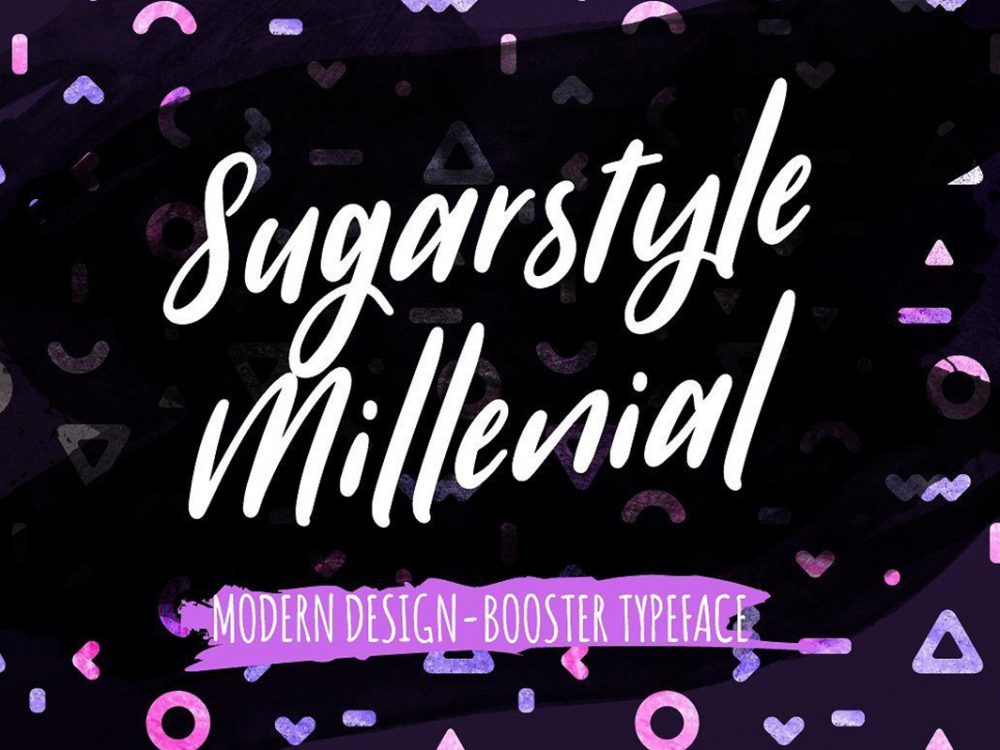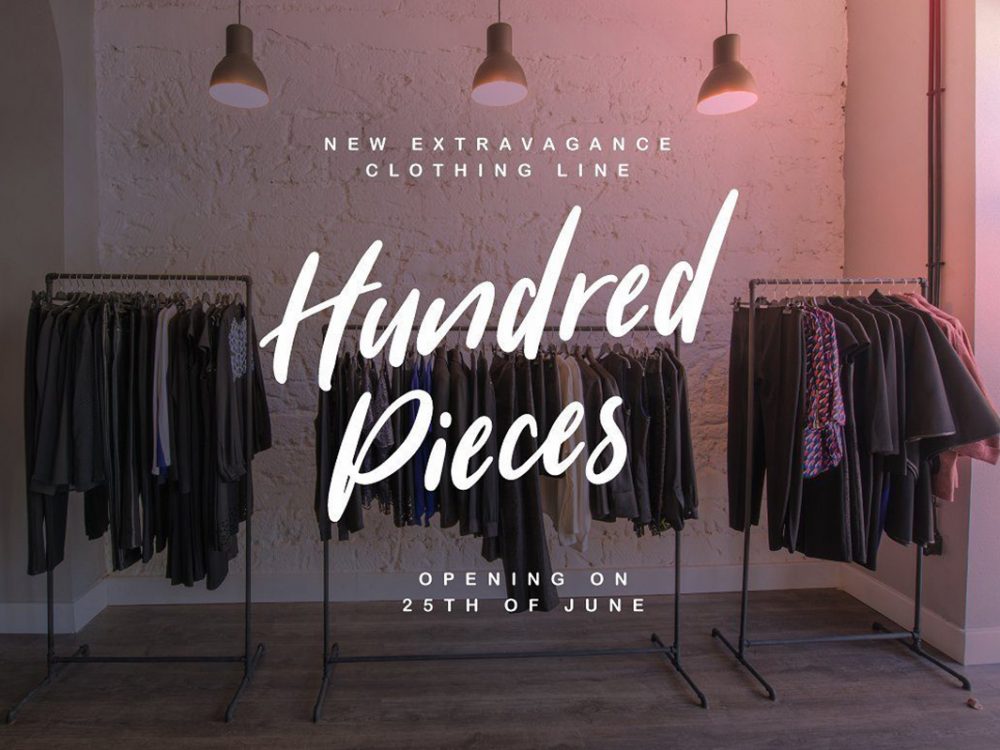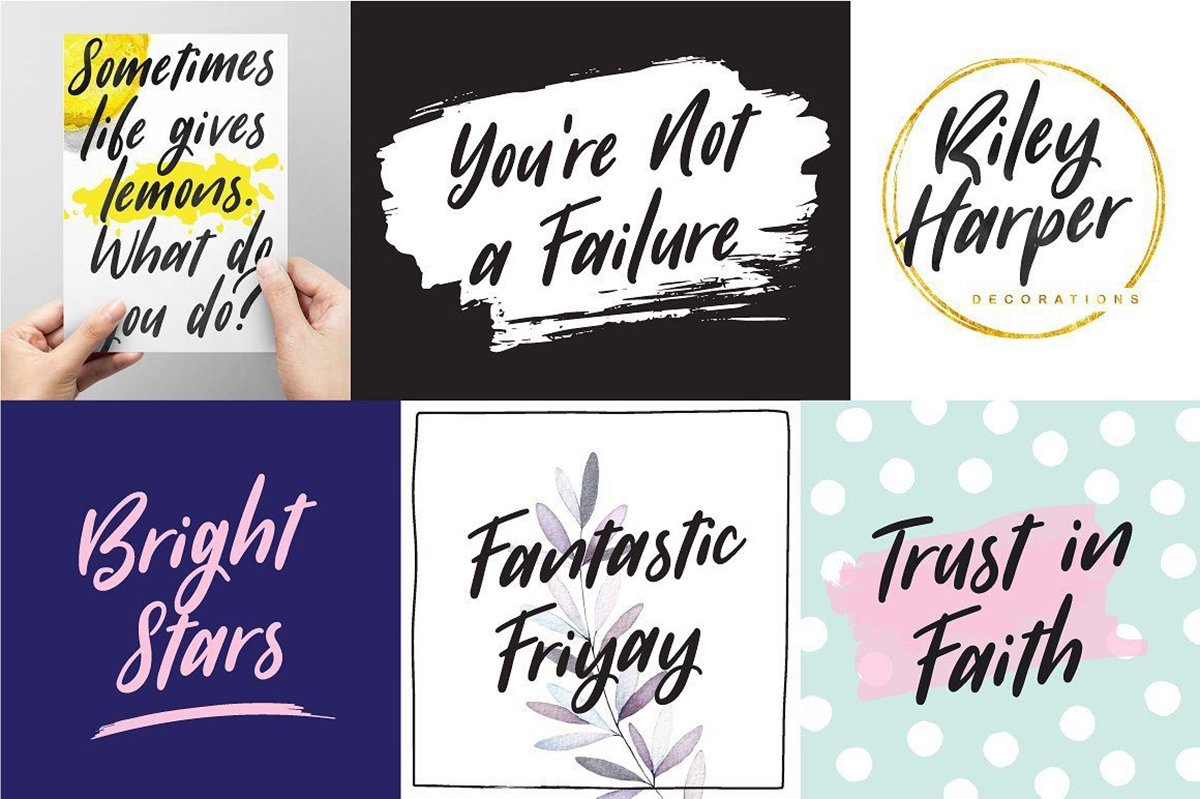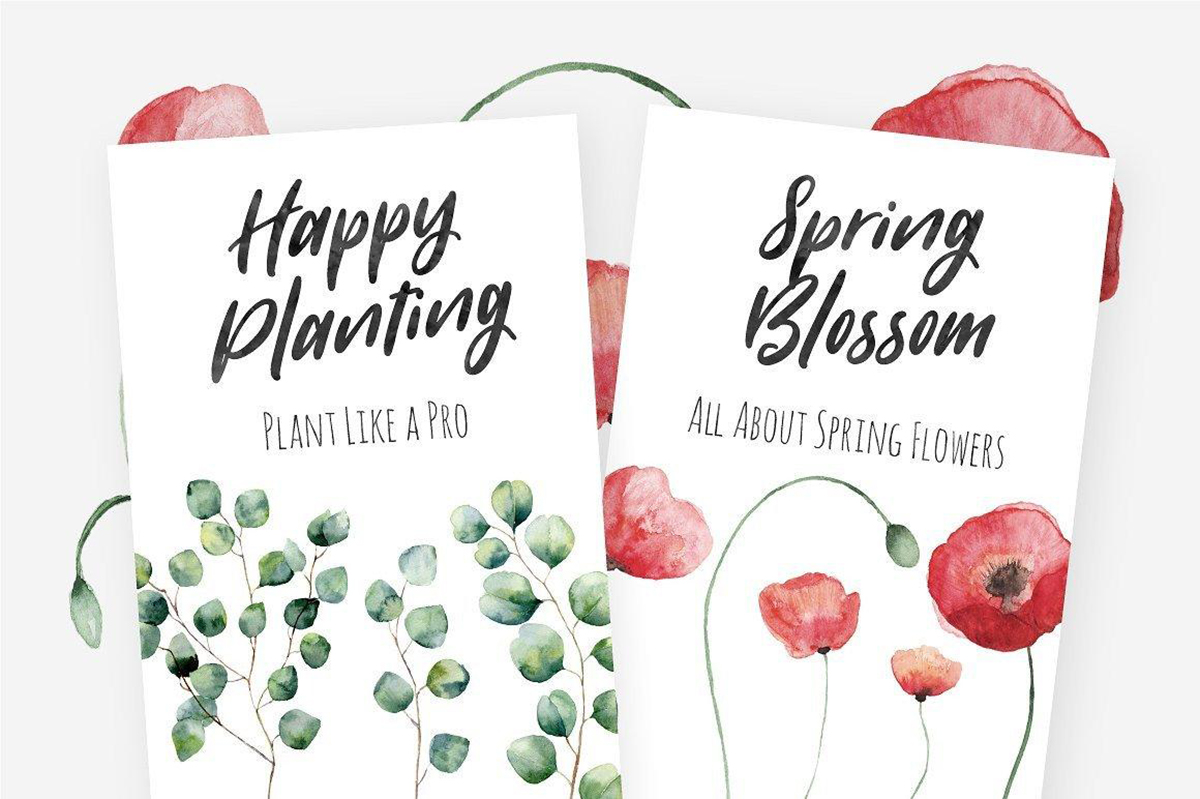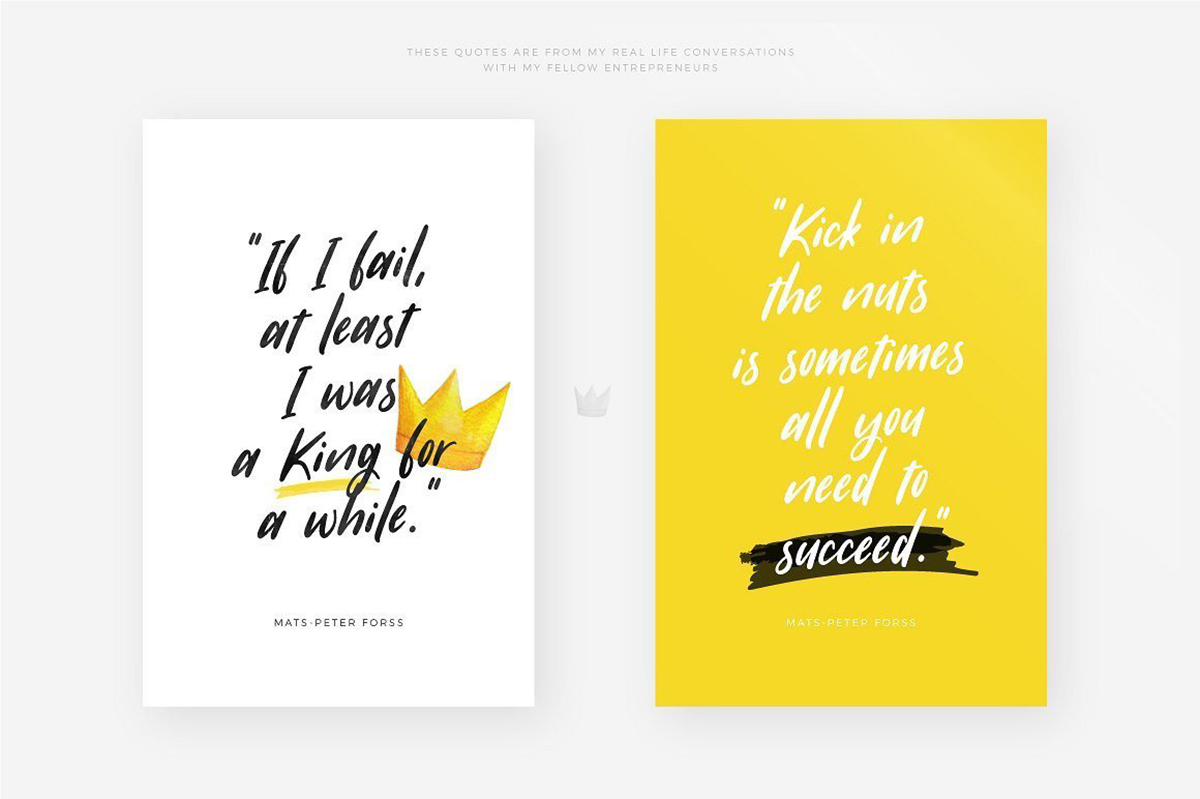
Sugarstyle Millenial Free Font
Sugarstyle Millenial Free Font is a stylish modern scripted handwritten font featuring an elegant calligraphic style. This font will help you create unique design projects and improve your professional level. Use this font to create memorable posters, wedding invitations, cards, branding, flyers, and more. Improve the quality and increase the popularity of your design projects using this font. If you like it don’t forget to check out the full version.
Author: Mats-Peter Forss